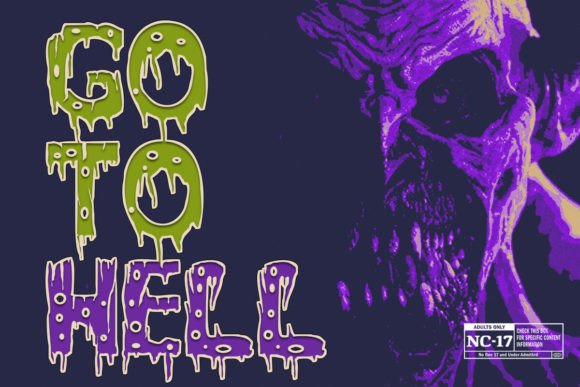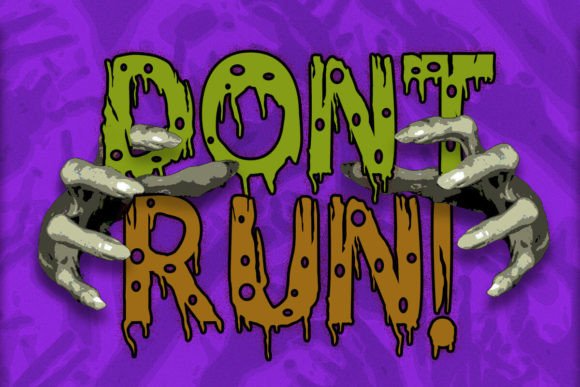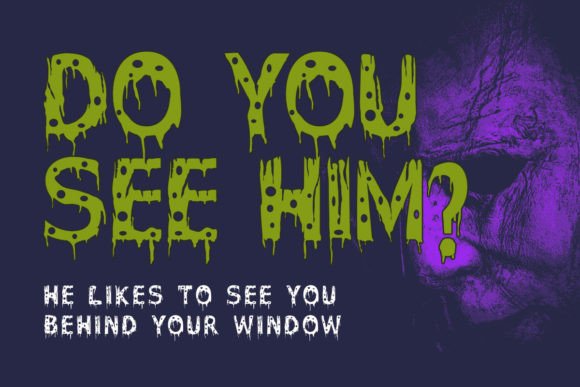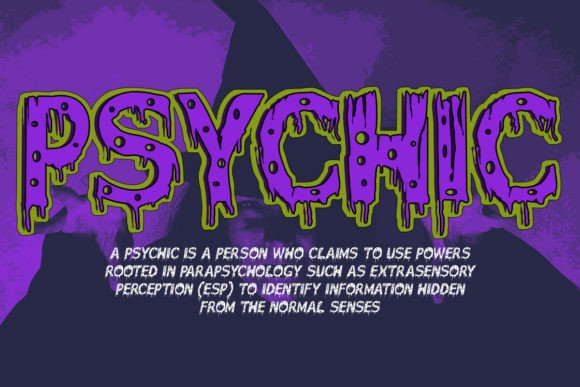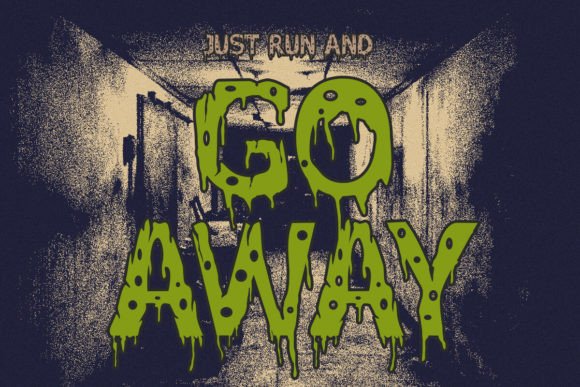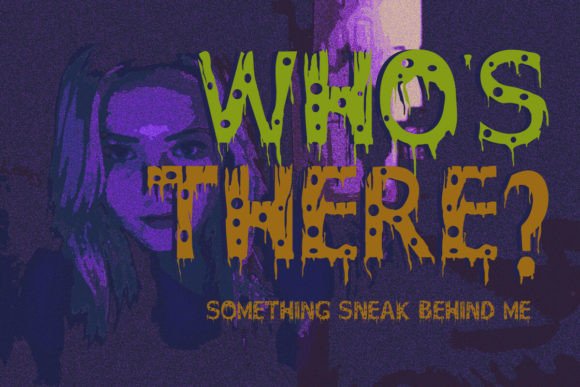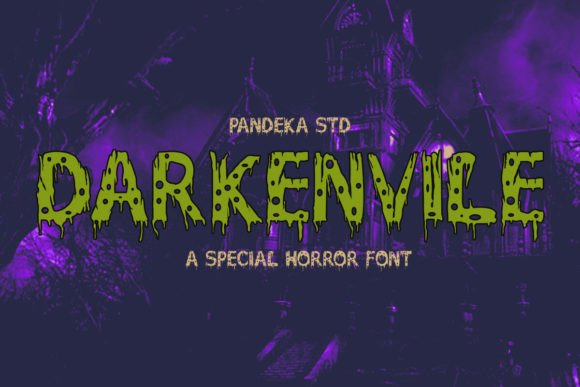
Unleash the Terror with Darkenvile Font: The Ultimate Typeface for Spooky Designs
Are you ready to add a blood-chilling touch to your designs? Look no further than Darkenvile, the ultimate font for all things spooky, creepy, and downright scary! Perfect for Halloween-themed projects, monster fanatics, and anyone who loves the eerie vibe of a haunted night, Darkenvile is your go-to typeface for creating designs that will leave your audience shivering in fear.
The Inspiration Behind Darkenvile
Darkenvile is more than just a font – it’s an experience. Inspired by the darker side of life, this typeface is designed to evoke the eerie and foreboding atmosphere of a haunted night. With its twisted and gnarled letterforms, Darkenvile is the perfect choice for designers who want to add a touch of terror to their projects.
Key Features of Darkenvile Font
So, what makes Darkenvile so special? Here are just a few of the key features that set this font apart:
• Unique Letterforms: Darkenvile’s letterforms are twisted and gnarled, giving your designs a truly eerie feel.
• Perfect for Spooky Projects: Whether you’re working on a Halloween-themed project or just want to add a touch of horror to your designs, Darkenvile is the perfect choice.
• High-Quality Design: Darkenvile is designed to perfection, with crisp and clean lines that will look great in any design.
• Easily Customizable: With Darkenvile, you can easily customize your designs to fit your needs, from changing the color and font size to adding your own textures and effects.
Uses for Darkenvile Font
So, what can you use Darkenvile for? The possibilities are endless! Here are just a few ideas to get you started:
• Halloween-themed Projects: Darkenvile is perfect for Halloween-themed projects, from invitations and party decorations to costumes and accessories.
• Horror Movie Posters: Add a touch of terror to your horror movie posters with Darkenvile’s eerie and foreboding letterforms.
• Monster Fan Art: If you’re a fan of monsters and creepy creatures, Darkenvile is the perfect font for your fan art projects.
• Haunted House Marketing Materials: If you’re promoting a haunted house or haunted attraction, Darkenvile is the perfect font to use in your marketing materials.
Tips for Using Darkenvile Font
Here are a few tips for using Darkenvile to get the most out of this amazing font:
• Use it Sparingly: Because Darkenvile is such a bold font, it’s best to use it sparingly to avoid overwhelming your design.
• Experiment with Colors: Darkenvile looks great in a variety of colors, from blood red to eerie green. Experiment with different colors to find the perfect look for your design.
• Combine it with Other Fonts: Darkenvile pairs well with a variety of other fonts, from clean and simple sans-serif fonts to more ornate and decorative fonts.
If you’re looking for a font that will add a blood-chilling touch to your designs, look no further than Darkenvile. With its twisted and gnarled letterforms, Darkenvile is the perfect choice for designers who want to create spooky and eerie designs that will leave their audience shivering in fear. So why wait? Download Darkenvile today and start creating your own terrifying designs!